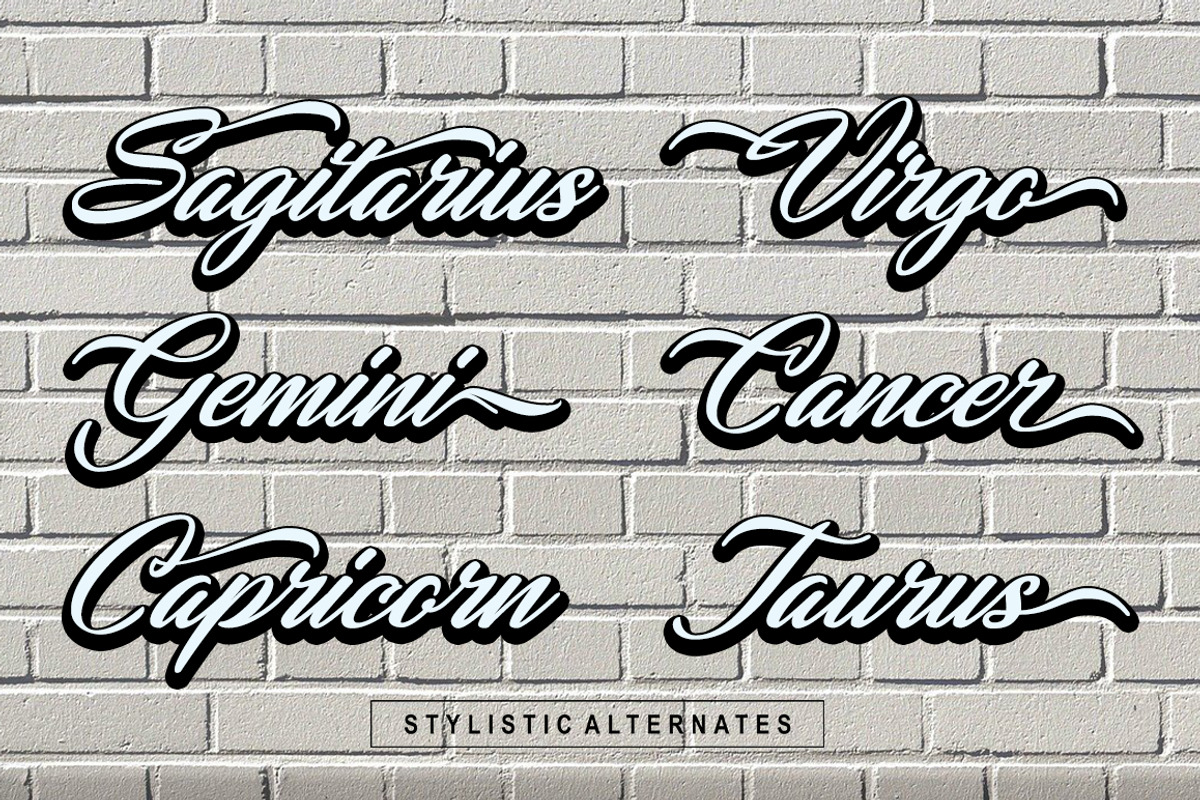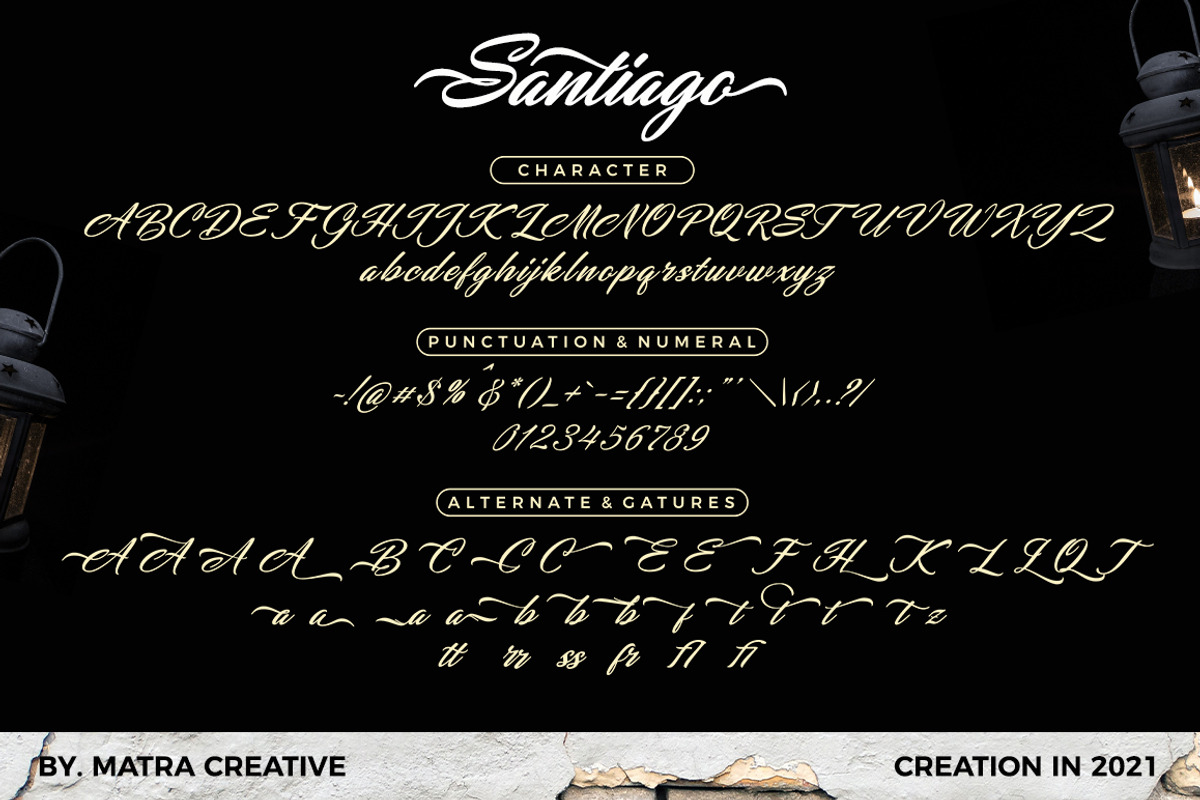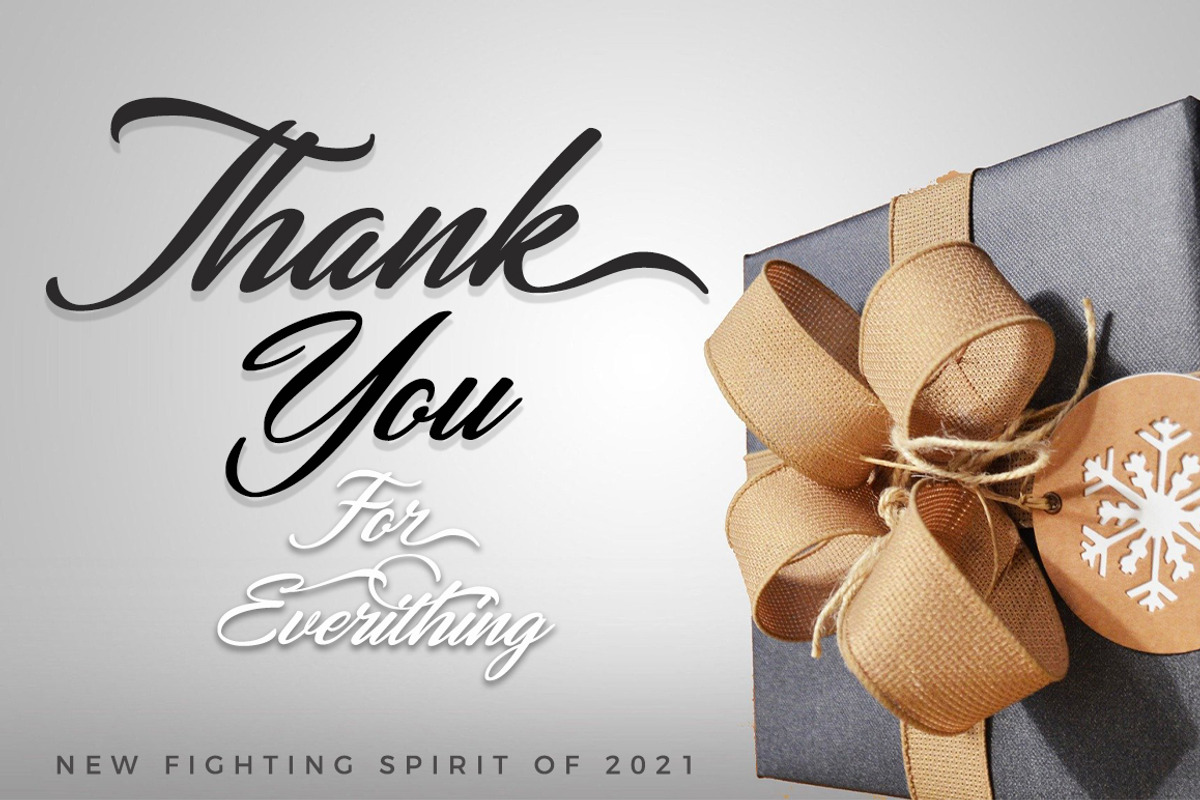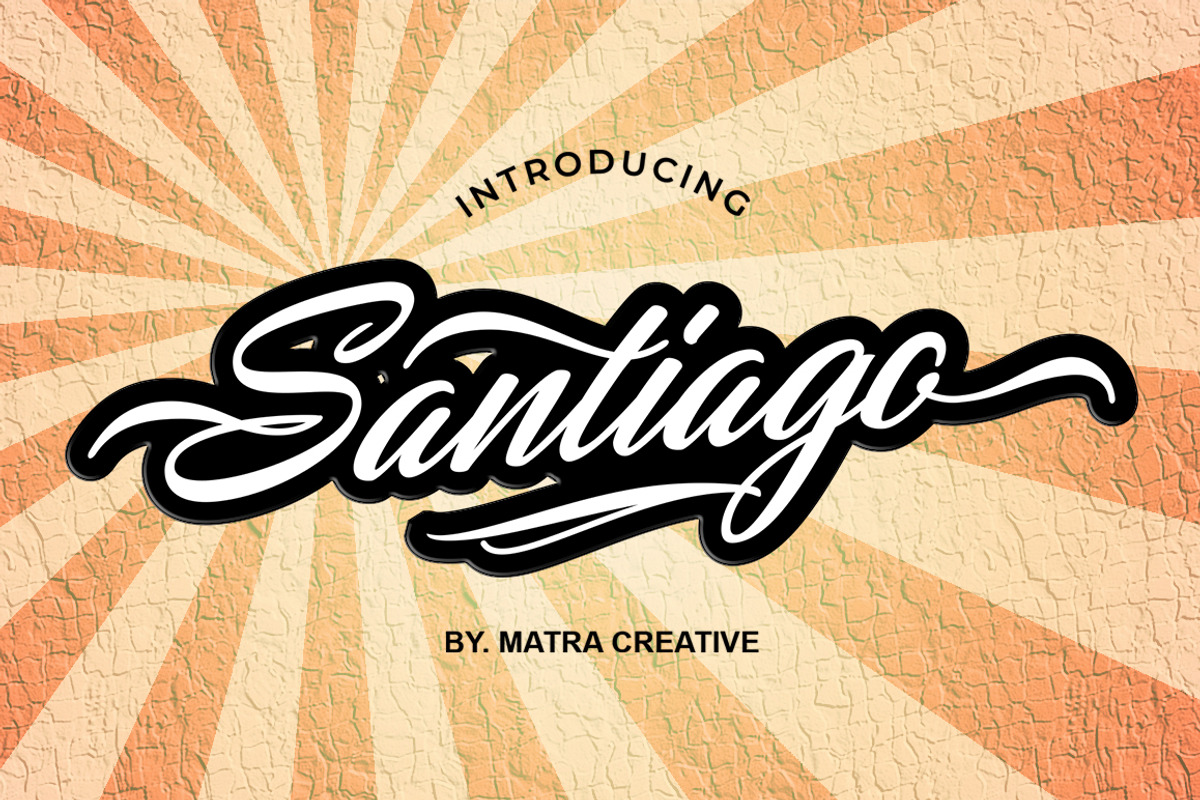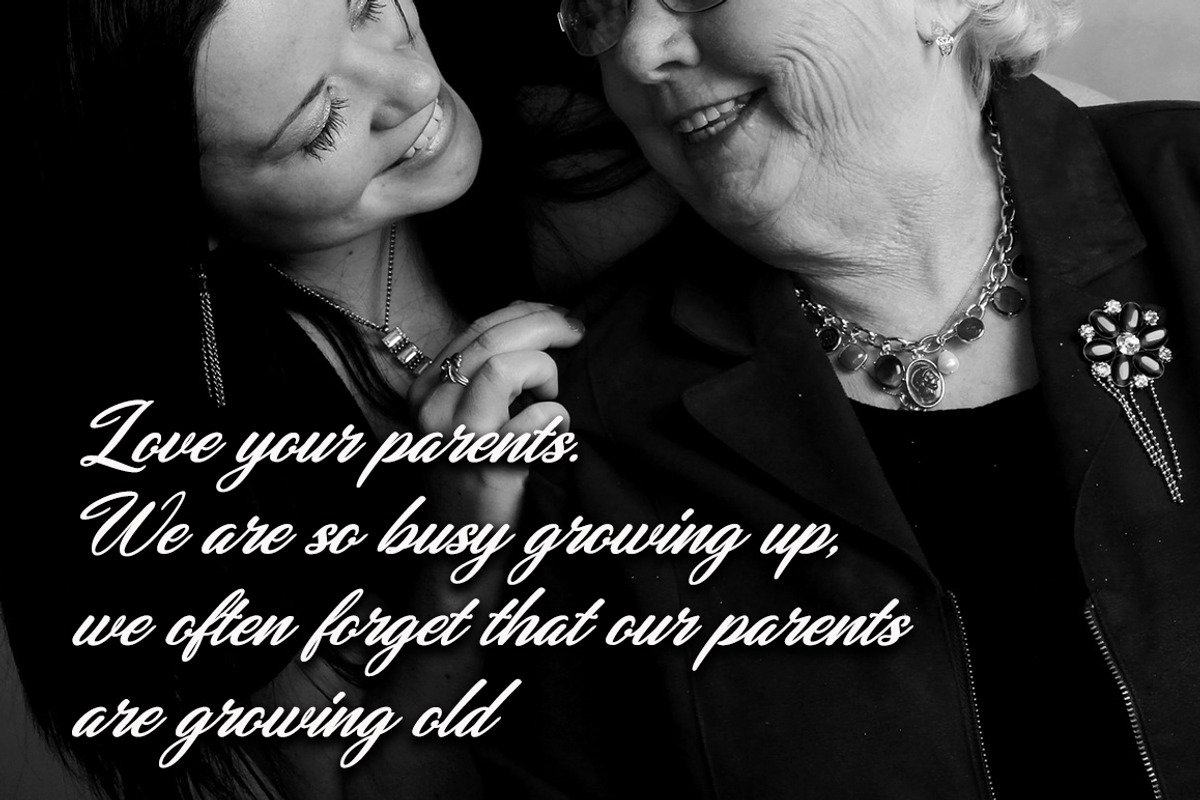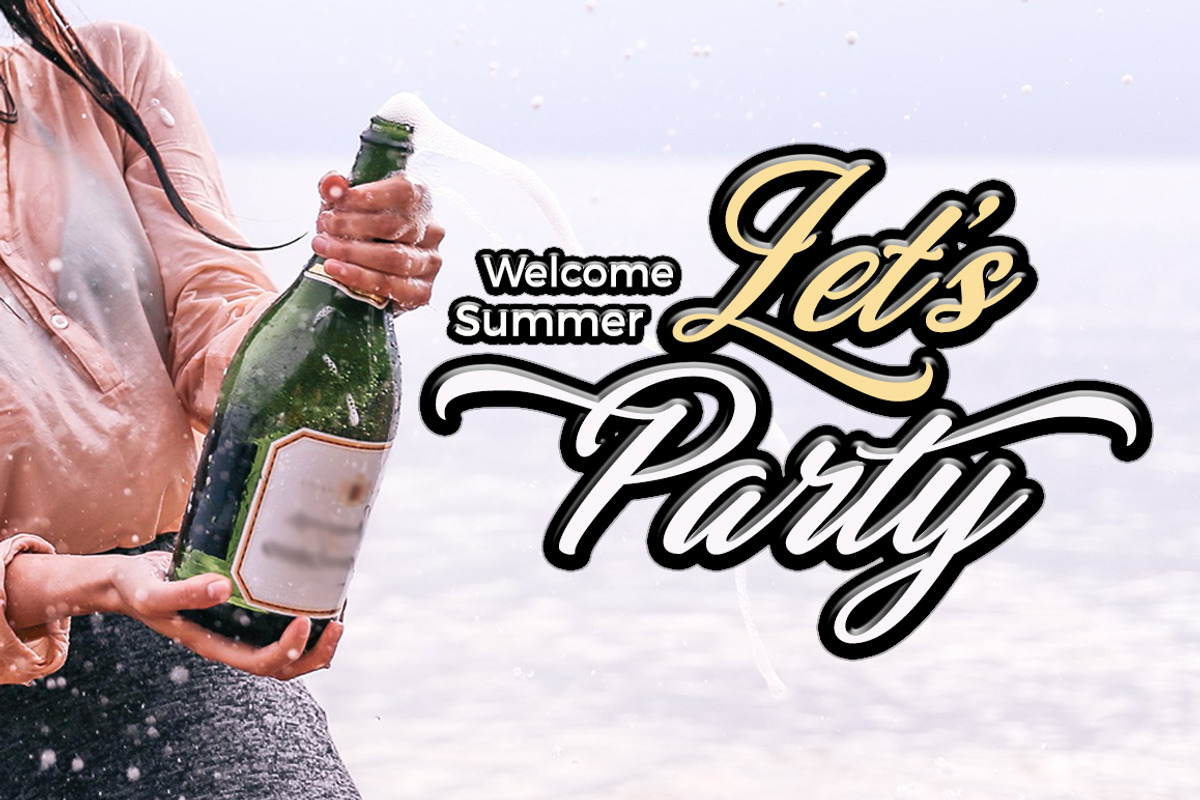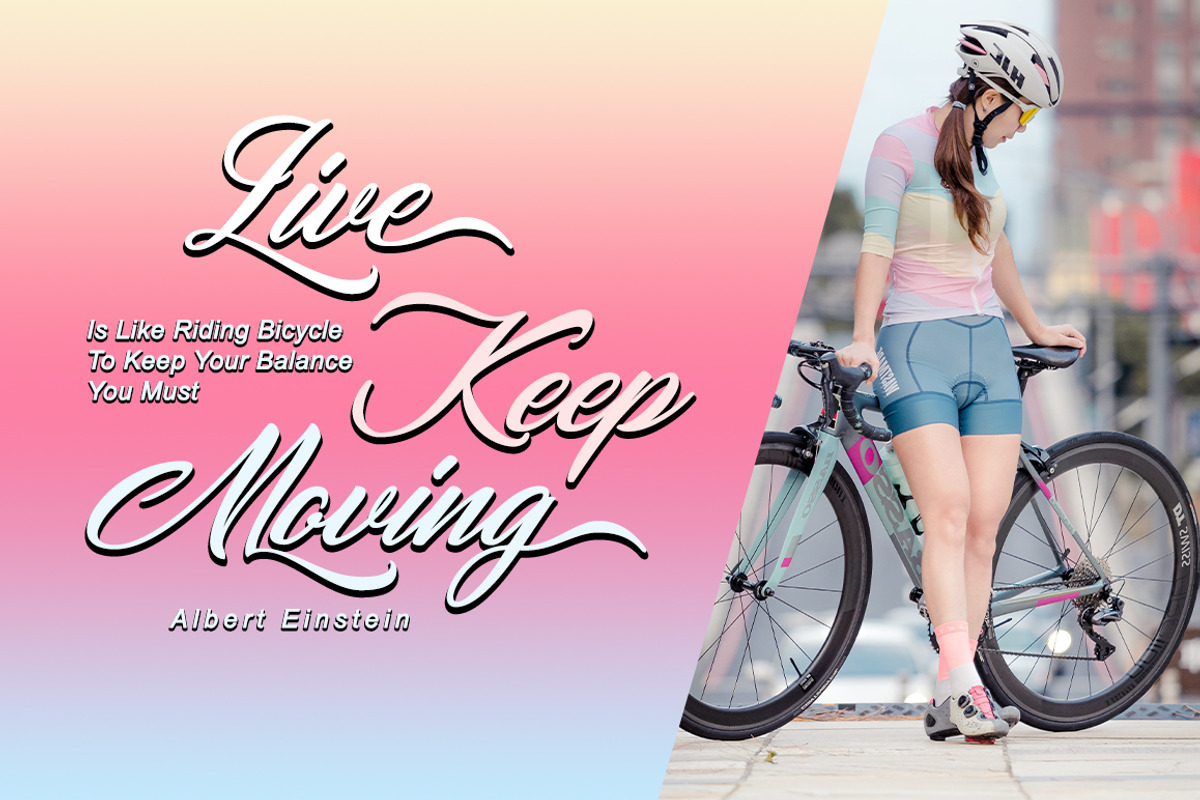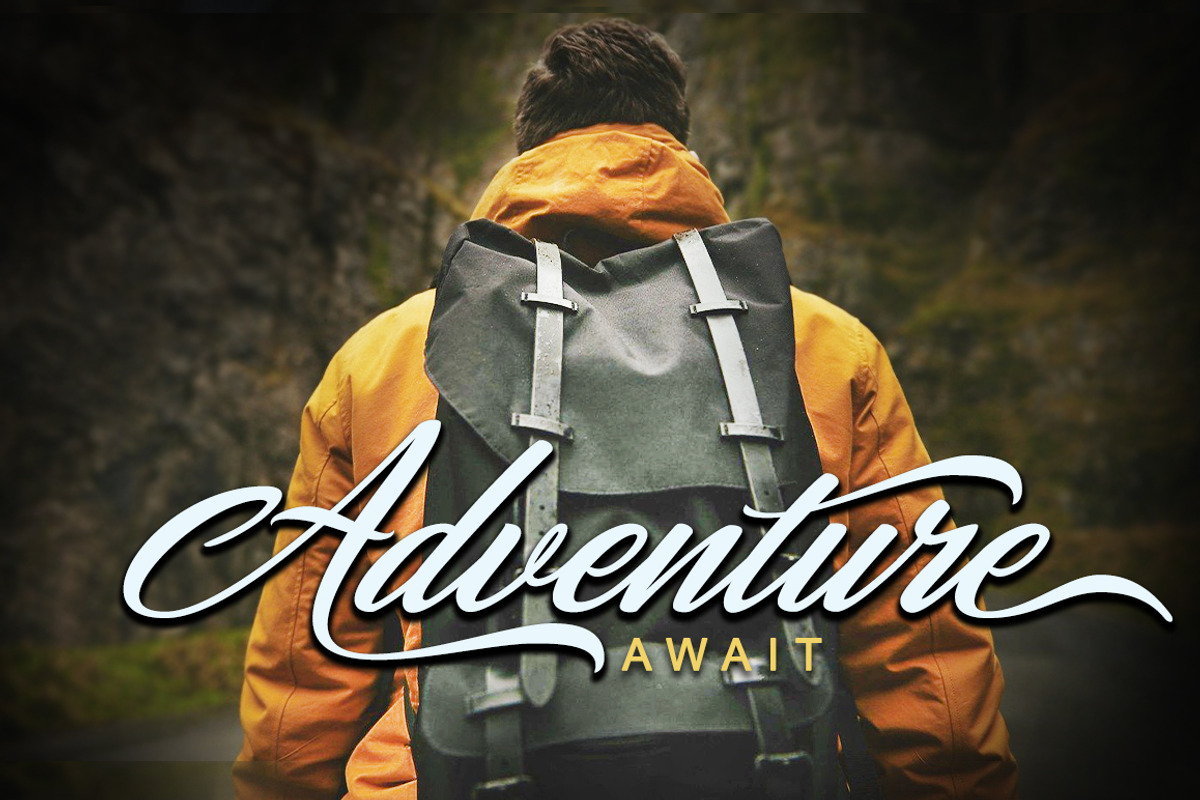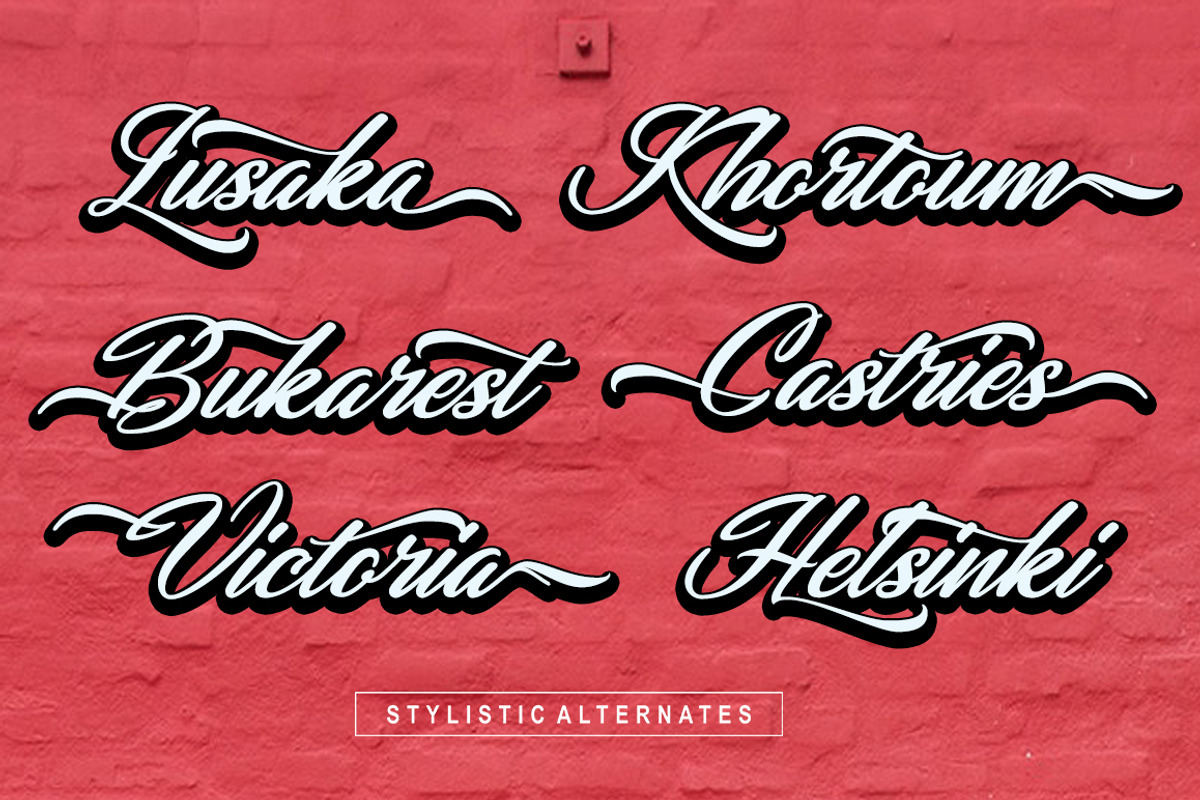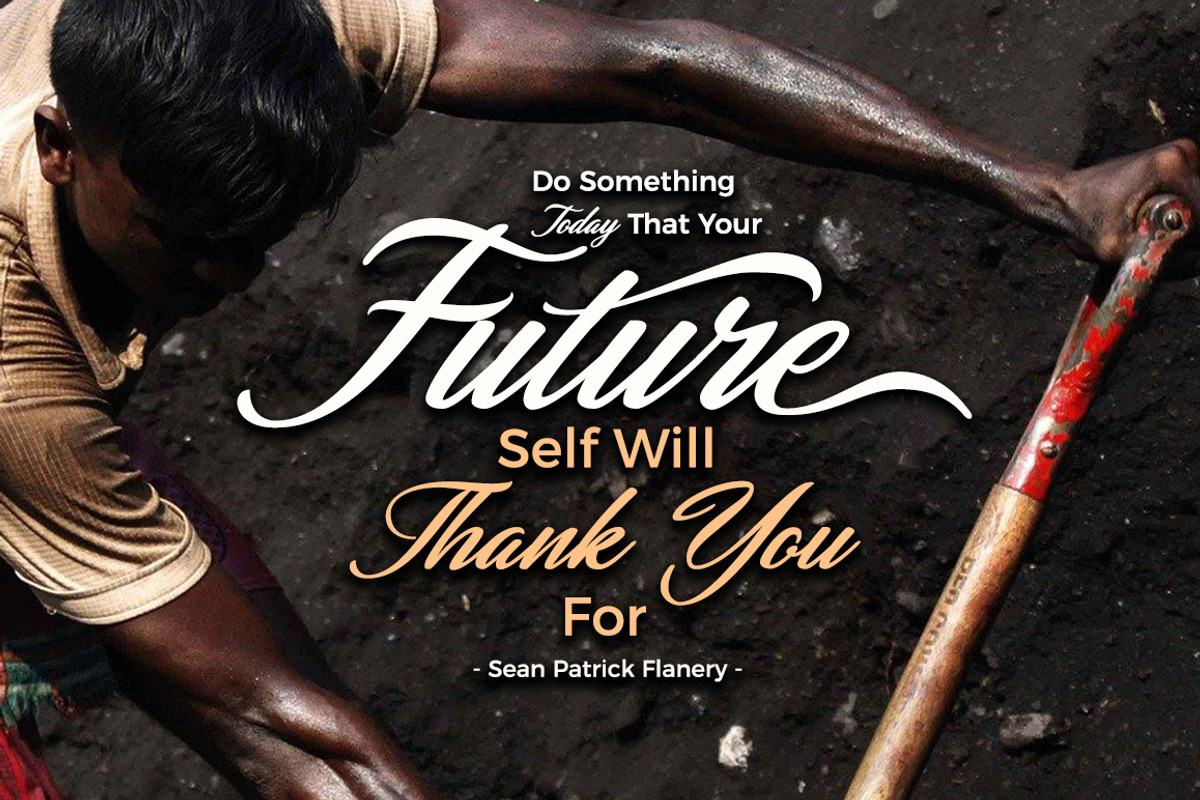
Santiago
Santiago is both charming and elegant. This font reads as strong, confident, and dynamic and can add tons of nostalgic character to your designs.